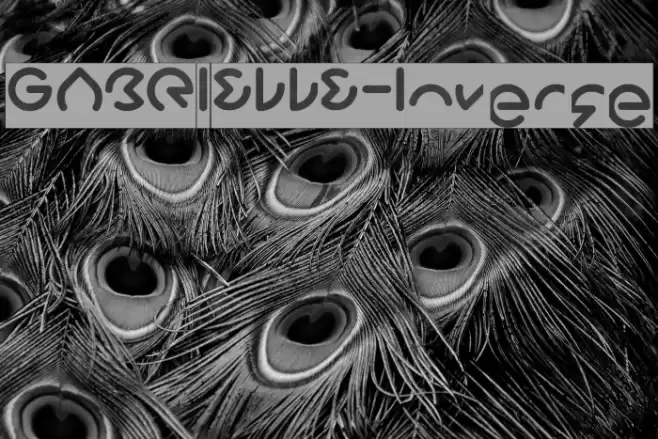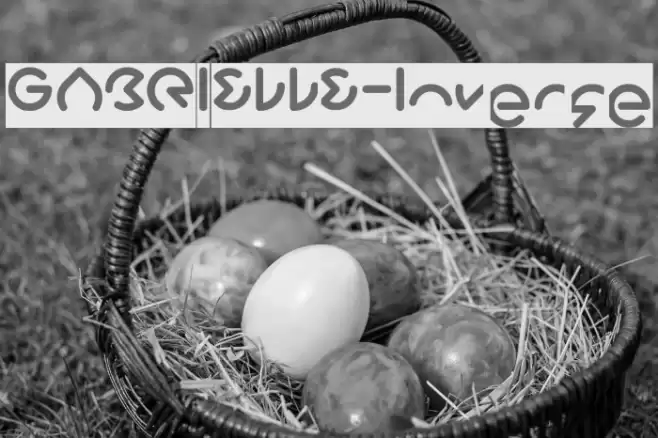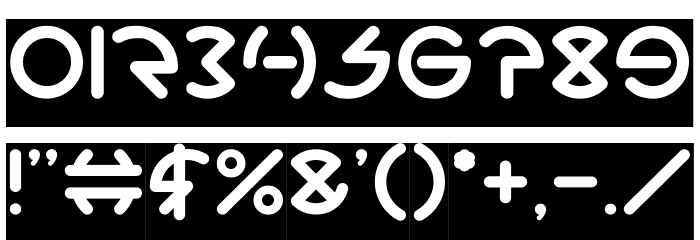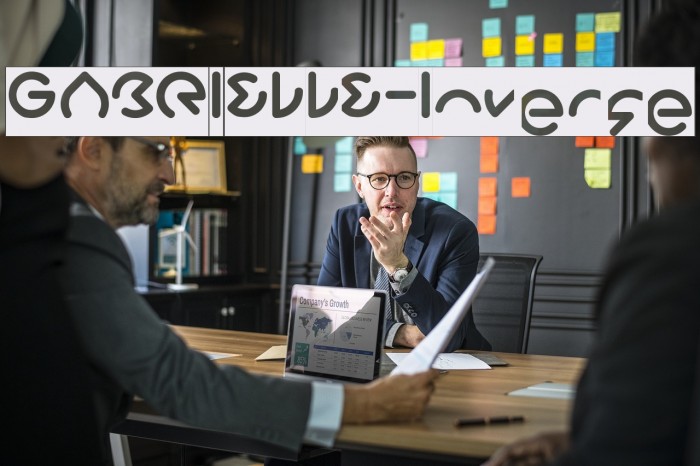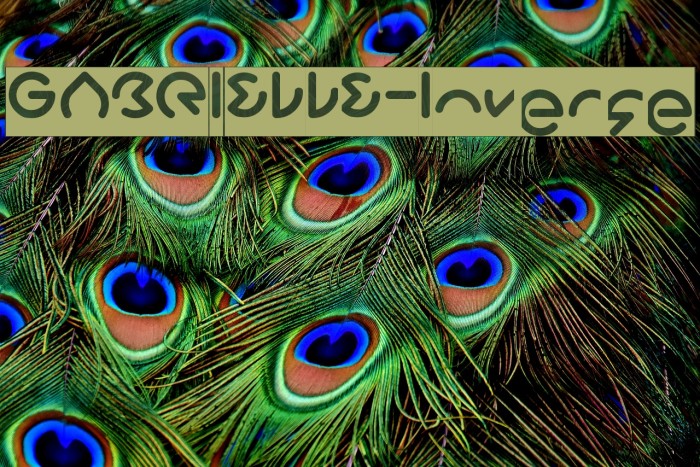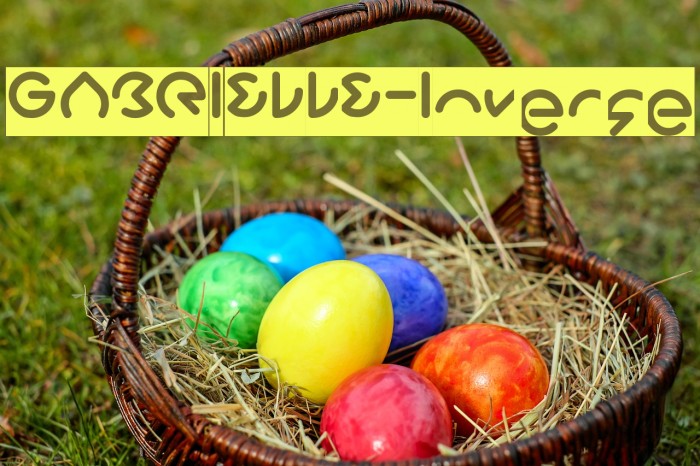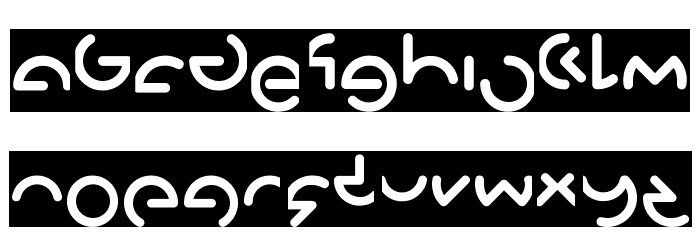
GABRIELLE-Inverse Font
GABRIELLE-Inverse Description
This font features a unique and futuristic design with a strong emphasis on geometric shapes and curves. Each character is crafted with a consistent stroke width, creating a harmonious and balanced appearance. The letters are stylized with rounded edges and a playful, almost alien-like aesthetic, making it stand out in any design. The font includes both uppercase and lowercase letters, numerals, and a variety of special characters, all maintaining the same distinctive style. Its bold and eye-catching design makes it ideal for creative projects that require a modern and unconventional look.
A futuristic, geometric font with rounded edges and a playful, alien-like aesthetic from Uncategorized fonts.
- Proposed Projects: Ideal for sci-fi themed designs, video game graphics, modern branding, and creative posters.